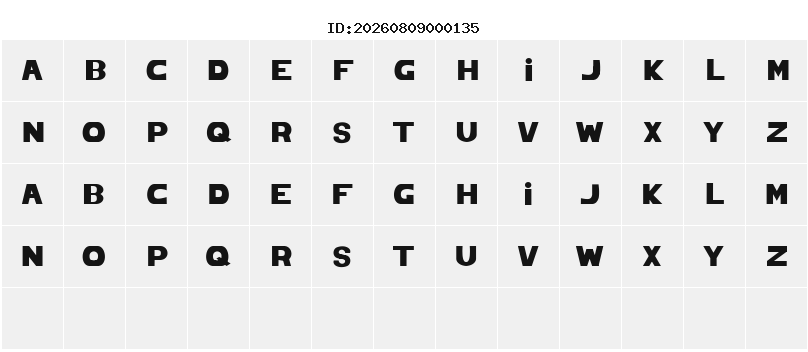
• Font Name: Pirelli
• Full Font Name: Pirelli
About Pirelli.ttf
Pirelli.ttf is a modern, elegant sans-serif font designed for ultimate readability and visual harmony. Perfect for branding, headlines, web design, and print materials.